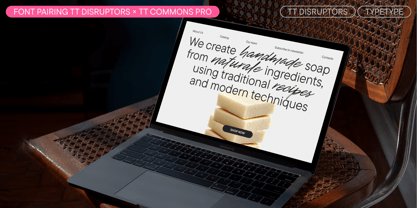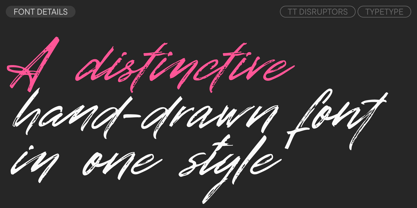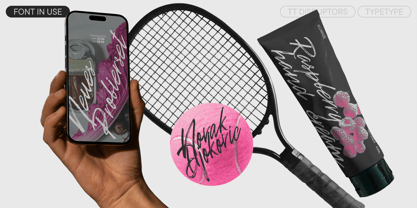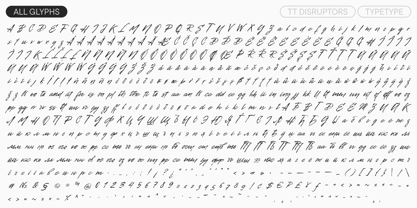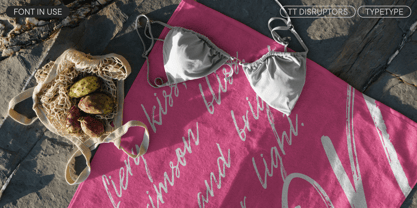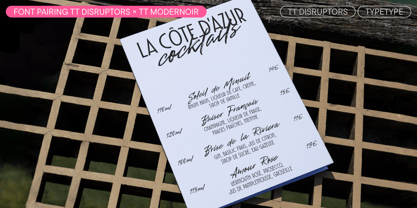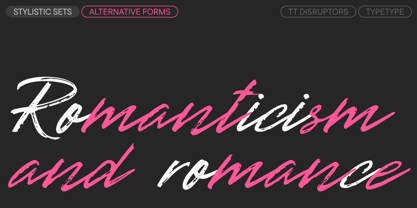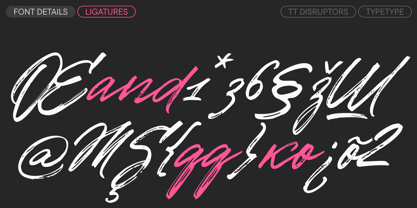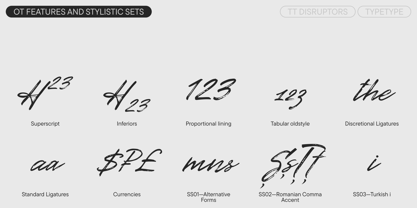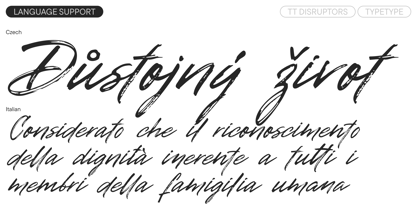
TT Disruptors
Introducing the new decorative TT Disruptors! A distinctive script font with a uniquely vibrant character.
TT Disruptors is a ductile marker-drawn handwritten typeface. Its design is one-of-a-kind: worn edges, varying stroke thickness, and elongated ascenders and descenders give it a lively, dynamic texture and handcrafted feel. The personality of this font is spirited and emotional, yet warm and soulful.
TT Disruptors is rich with context alternates that enhance its expressiveness. We've developed alternative forms for frequently used letters. When typing, these automatically change depending on neighboring characters, ensuring the text looks captivating with any letter combination.
Additionally, TT Disruptors includes functional ligatures for the most common two and three-letter combinations, adding variety to the text, breaking the monotony of typesetting, and introducing an element of surprise. For maximum impact, we recommend always enabling the context alternates (calt) and standard ligatures (liga) features.
This typeface is perfect for packaging design, branding, and creating visual identities. It's an ideal choice for projects where handcrafted authenticity, individuality, and expression are key.
TT Disruptors includes:
• 1 style
• 621 glyphs
• 12 OpenType features
• Support for more than 160 languages
TT Disruptors—handcrafted, dynamic, inspiring!